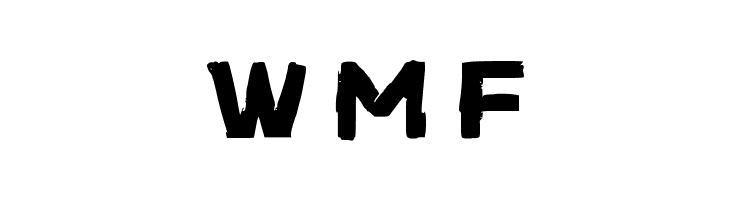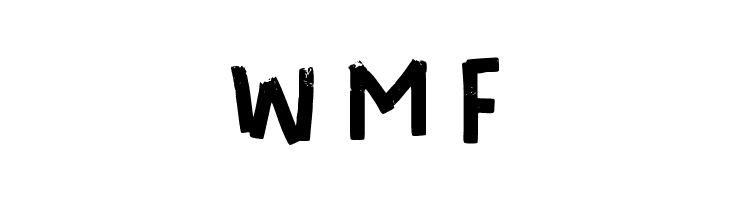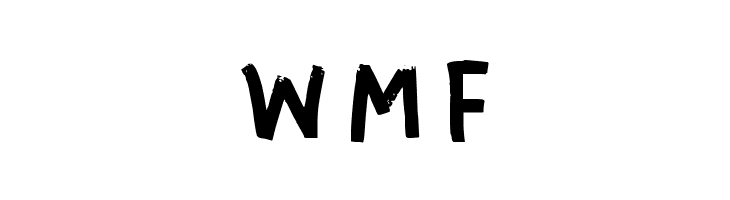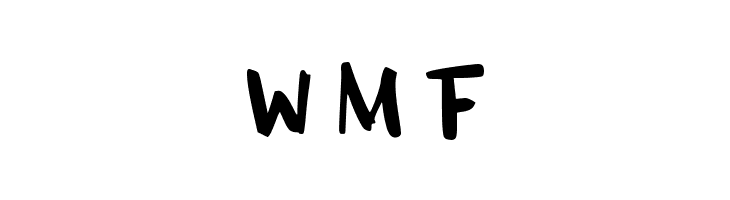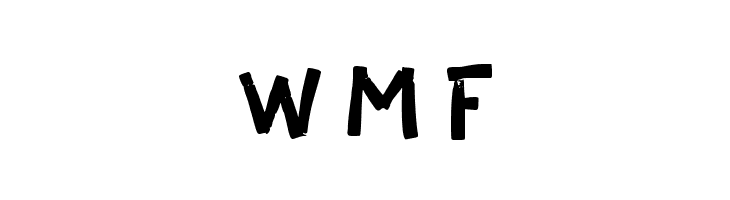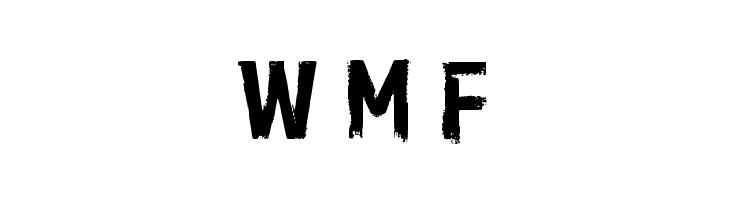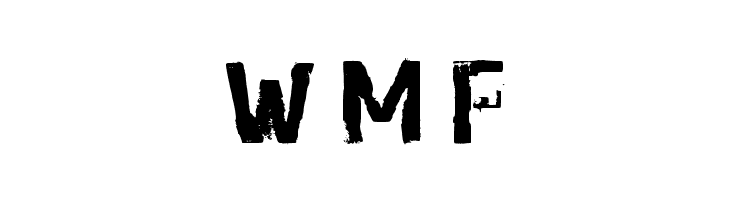
A bold, hand-painted style font with dynamic, brush-like strokes.
A playful, rounded font with whimsical curves and heart-shaped details.
A bold, playful font with a hand-drawn, textured style.
A bold, playful handwritten font with thick, uneven strokes and a casual style.
A bold, playful handwritten font with thick strokes and rounded edges.
A bold, playful font with a hand-drawn, energetic style.
A bold, distressed font with rough, textured edges for a rugged look.
A bold, distressed font with a playful and rugged appearance.
A bold, distressed font with a rugged, grunge aesthetic.